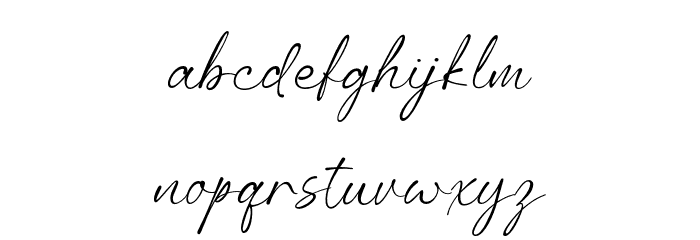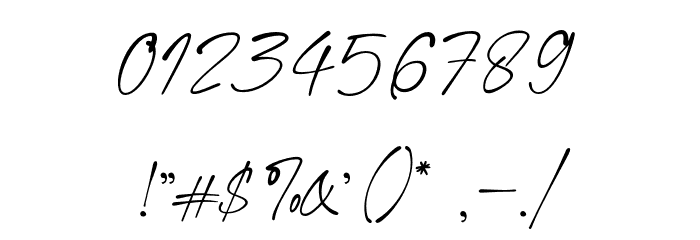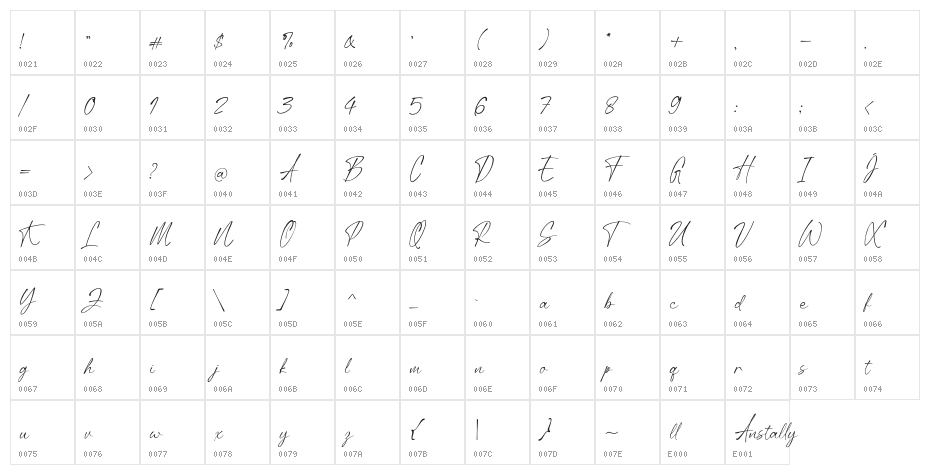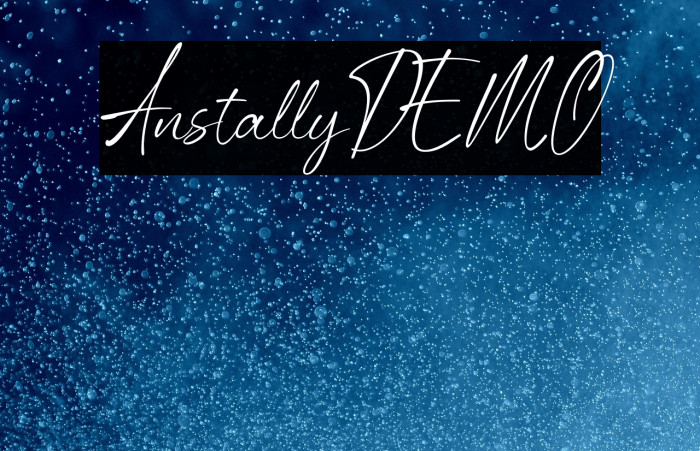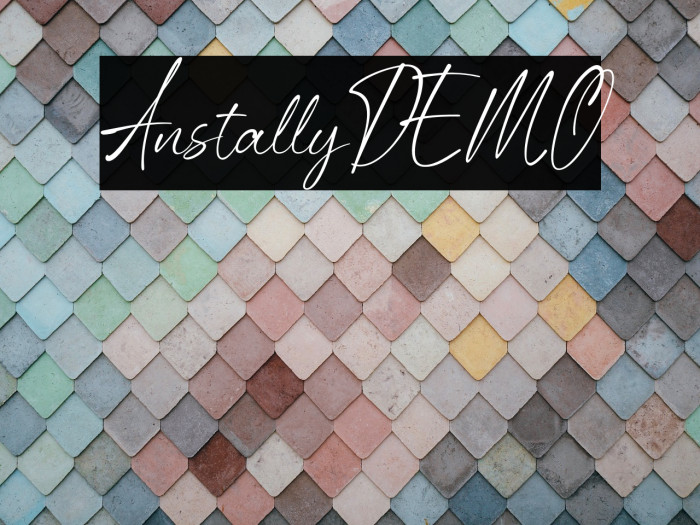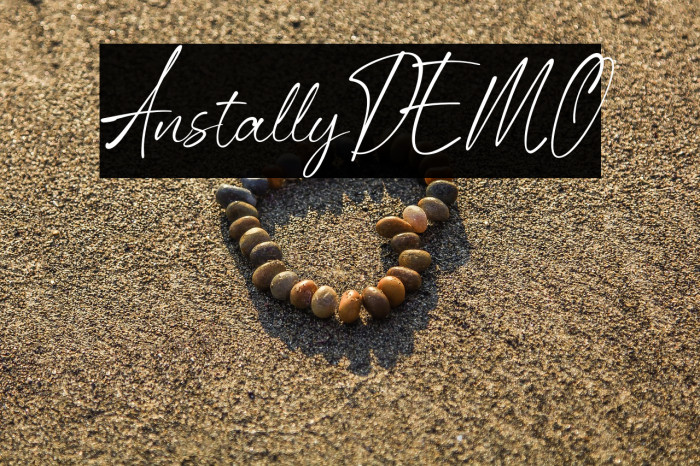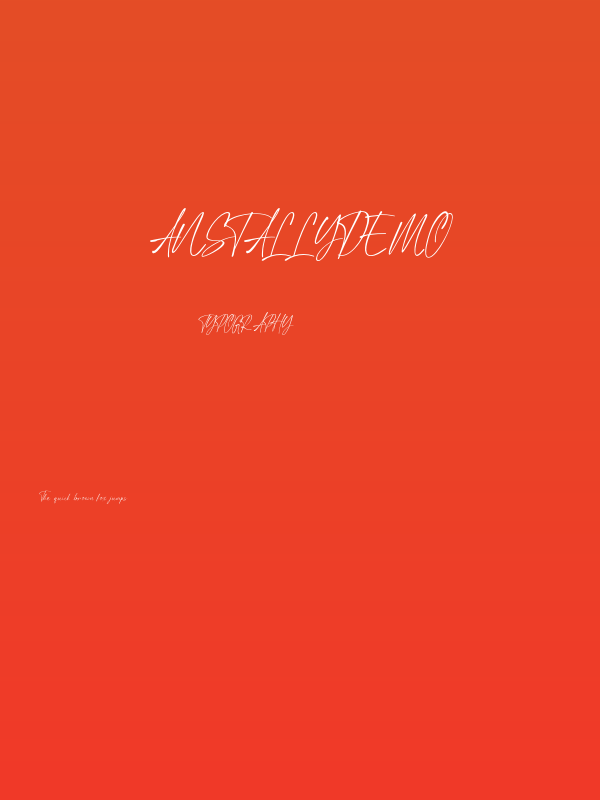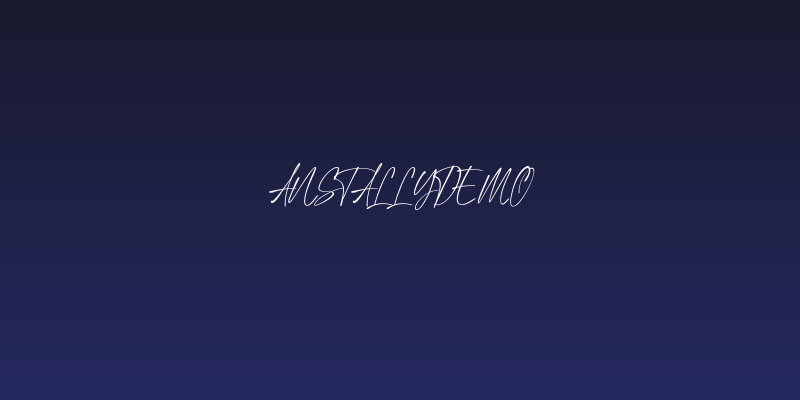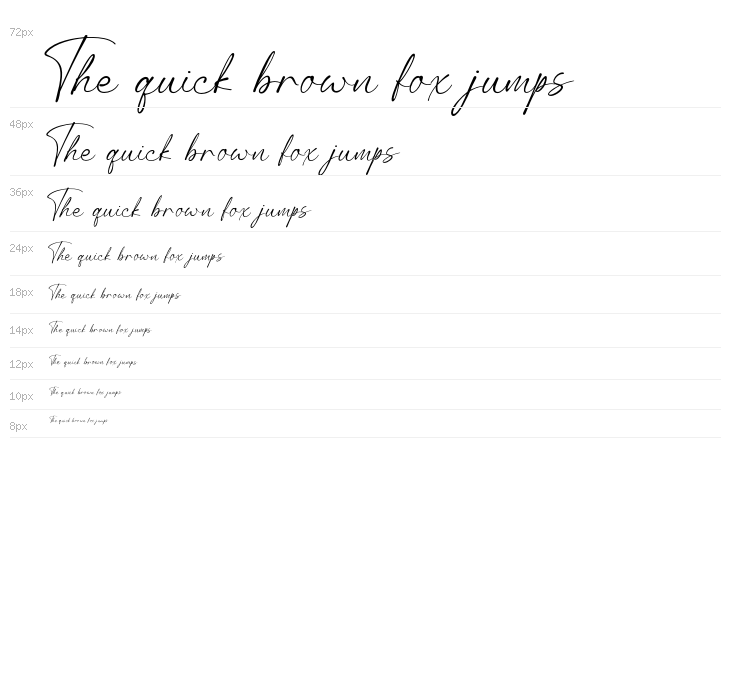
AnstallyDEMO Font
This font exudes a sense of elegance and fluidity, characterized by its cursive, handwritten style. The letters are interconnected with smooth, flowing strokes, giving it a sophisticated and artistic appearance. The uppercase letters are bold and dynamic, while the lowercase letters maintain a delicate and graceful form. The numerals are consistent with the overall style, featuring rounded edges and a slight slant. Special characters are seamlessly integrated, maintaining the font's cohesive look. This font is ideal for projects that require a personal touch or a sense of refinement.
A cursive, handwritten font with elegant and fluid strokes.
- Proposed Projects: Ideal for wedding invitations, personal branding, greeting cards, and artistic projects.
- Overall Style: Elegant and Artistic
- Use Case: Logos, Invitations, Artistic Projects